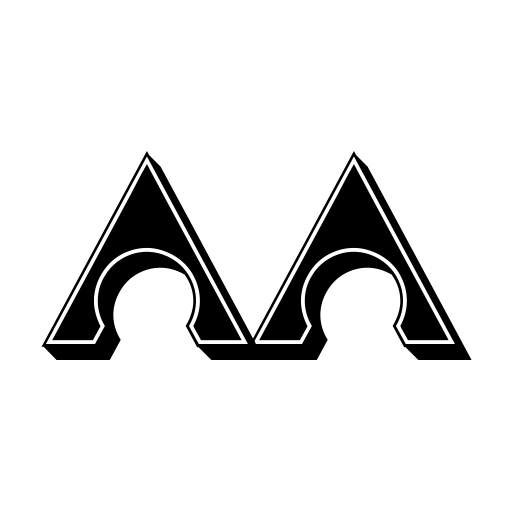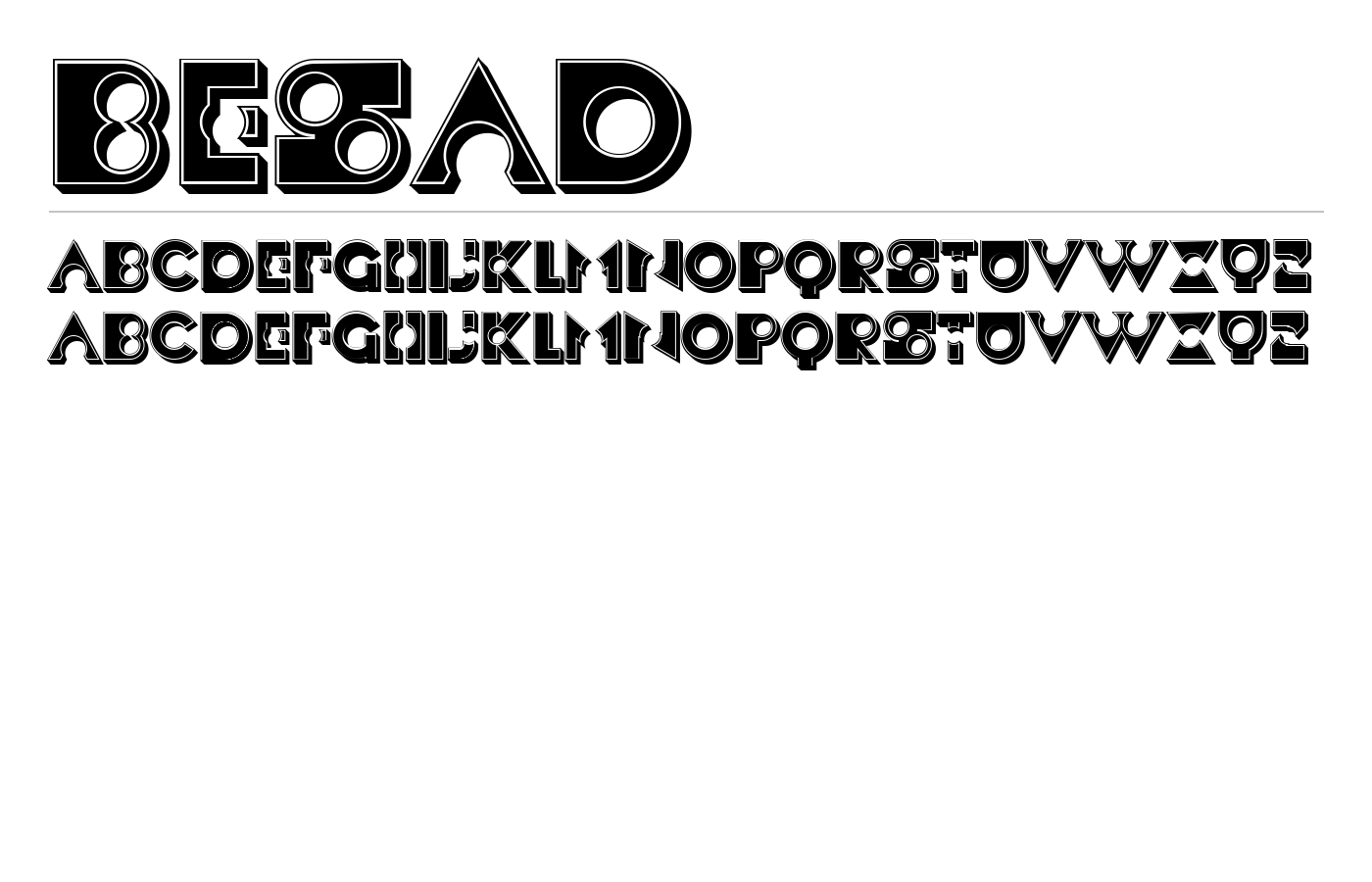
Besad Font is a bold, decorative display typeface with strong geometric shapes and high contrast between thick and thin strokes. Its striking three-dimensional shadow effect and unique letterforms give it a vintage yet playful character, making it perfect for eye-catching headlines, logos, and posters. This font captures attention with its dynamic style, ideal for branding that seeks a bold and creative impact.
Besad Font
About Besad Font